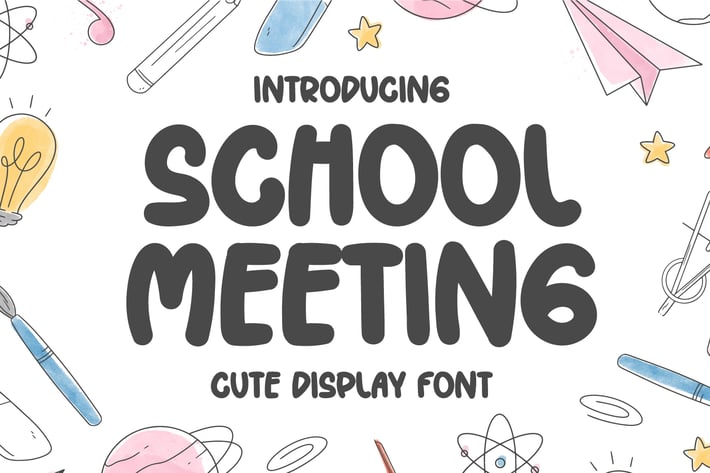
School Meeting - Cute Handwritten Display Font
Introducing School Meeting - Cute Handwritten Display Font
School Meeting is a handwritten and cute display font that fits perfectly into anything. Its casual charm makes it look very down-to-earth, easy to read, and, in the end, very versatile. Add this beautiful display font to your every creative idea.
This font is perfect for quotes, shirt designs, websites, branding, children’s designs, blogs, logos, invitations, and more!